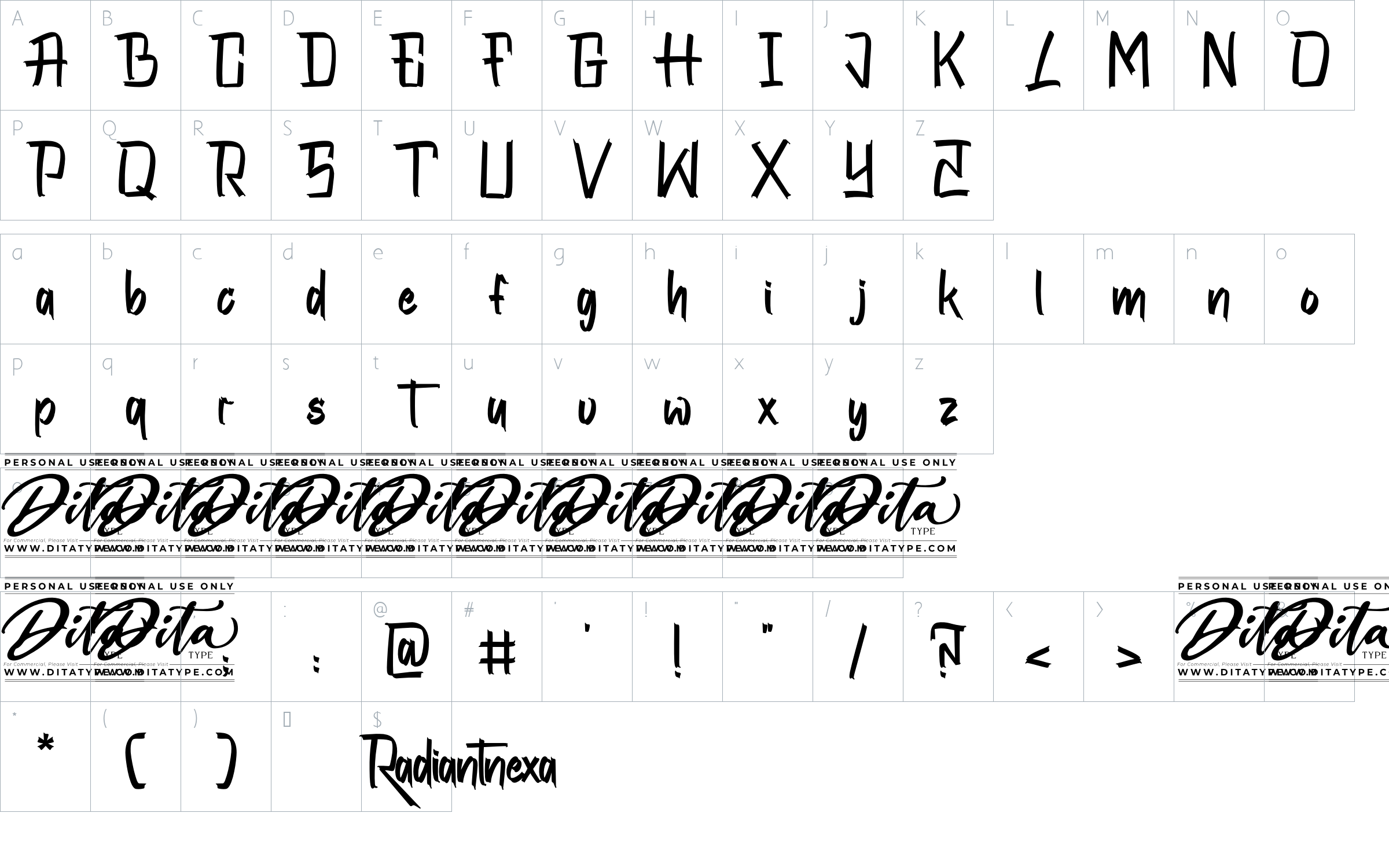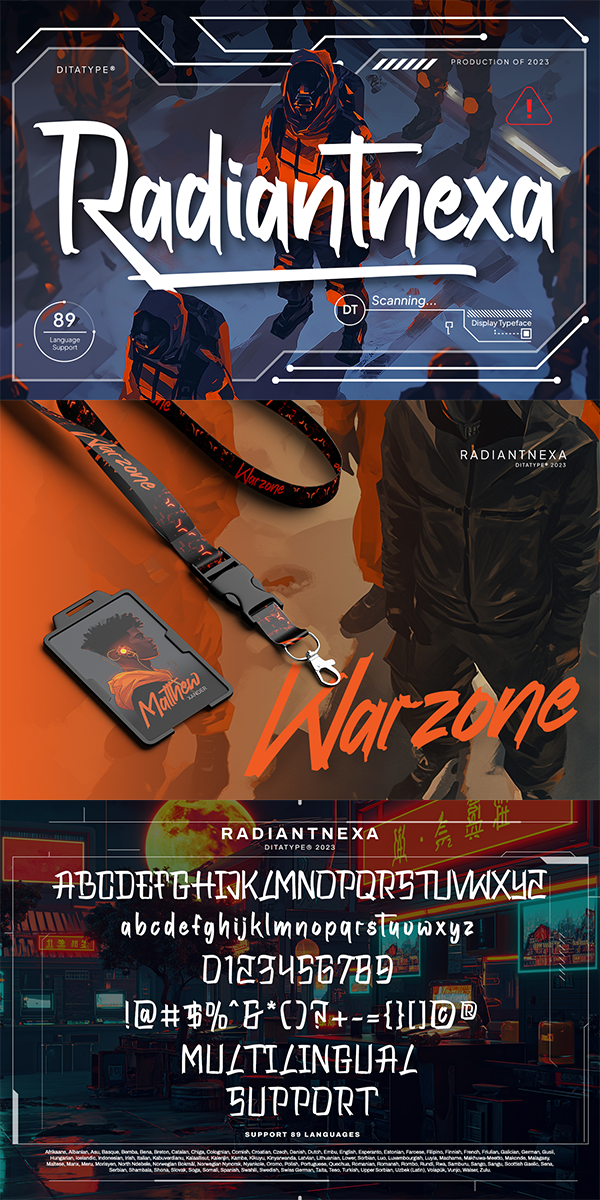
Radiantnexa Font
About Radiantnexa
Radiantnexa is a visionary display font that seamlessly merges futuristic aesthetics with the elegance of script typography. As its core, Radiantnexa embodies the essence of futurism, featuring clean lines, sharp angles, and a sleek, minimalist design. This futuristic style lends the font a sense of innovation and forward-thinking.
On the other side, its subtle touch of script elements, which adds a hint of warmth and personality to the otherwise futuristic design. These script-inspired details soften the geometric shapes of the font, creating a unique juxtaposition of sleek modernity and organic fluidity. Enjoy the features here.